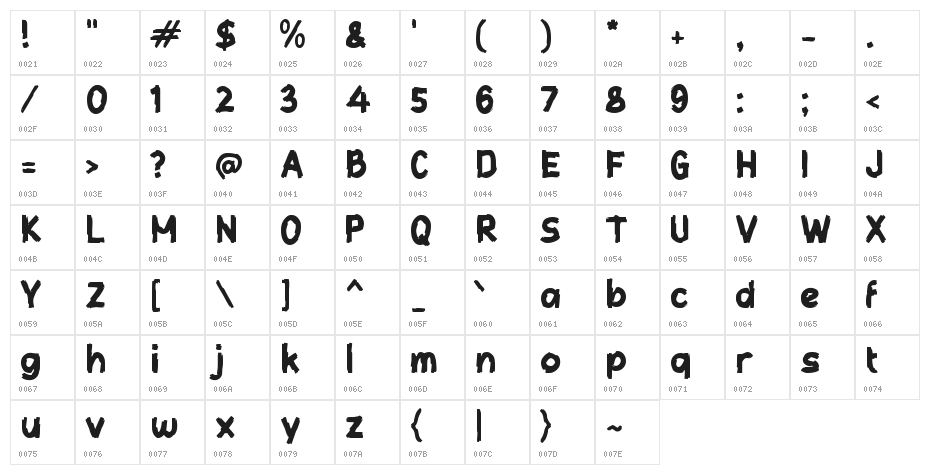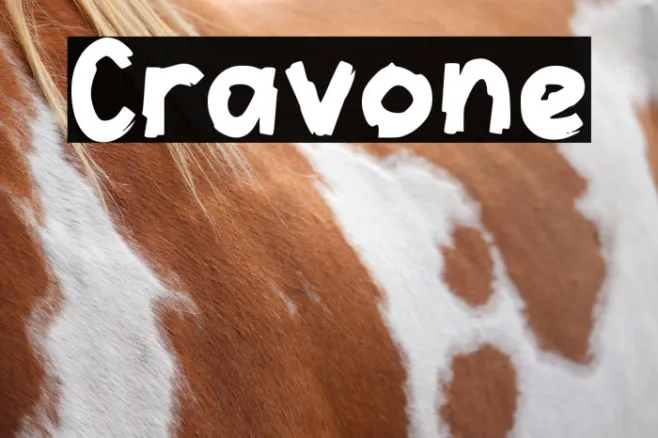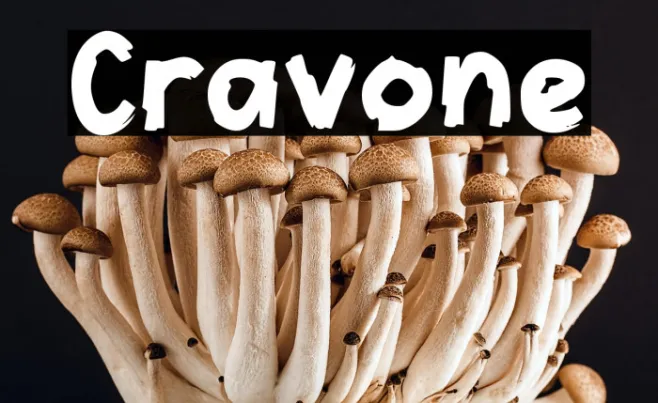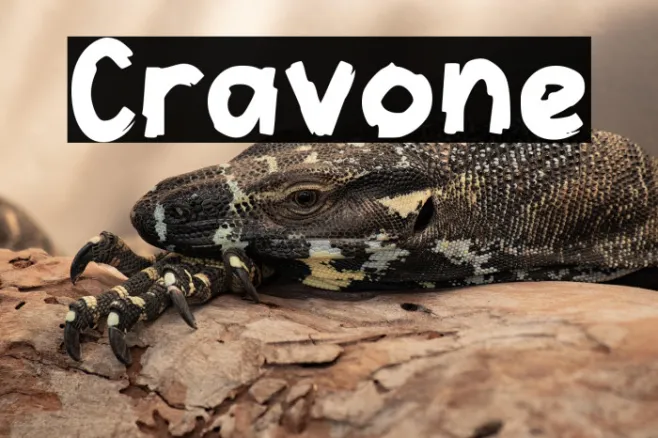
Cravone Font
Cravone Description
This font exhibits a bold, expressive style with a hand-drawn appearance. The characters are irregular and dynamic, giving a sense of movement and energy. The strokes are thick and uneven, contributing to a playful yet assertive look. The uppercase and lowercase letters maintain a consistent style, while the numbers and special characters blend seamlessly with the overall design. This font's unique character makes it stand out, ideal for projects that require a strong visual impact.
CRAVONE UPPERCASE
CRAVONE LOWERCASE
CRAVONE OTHER CHARS